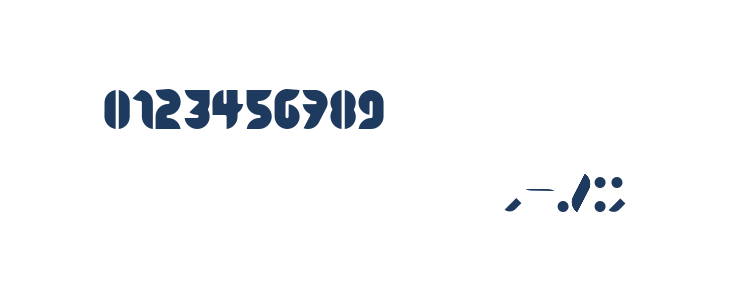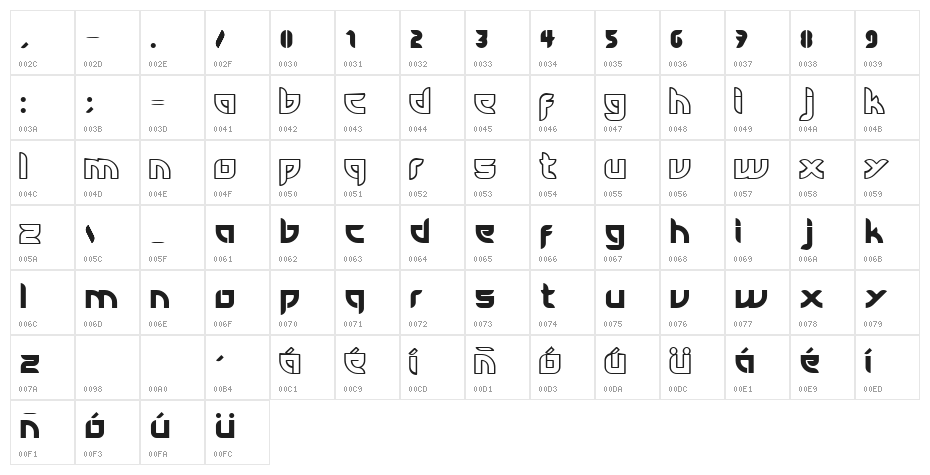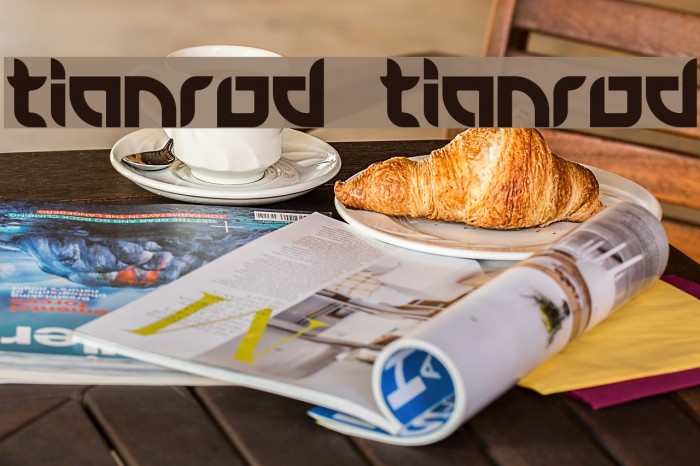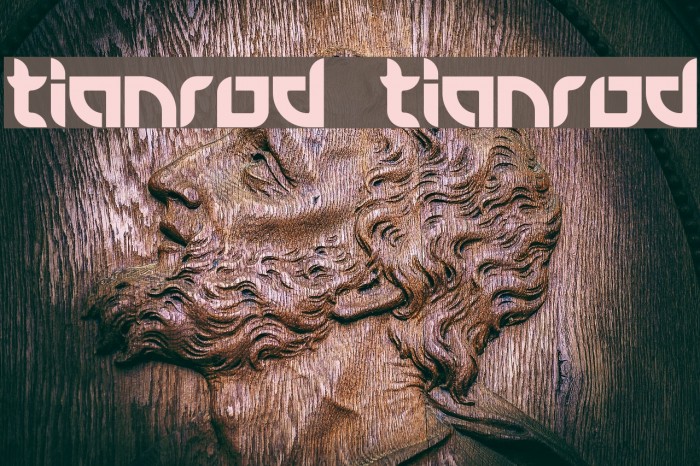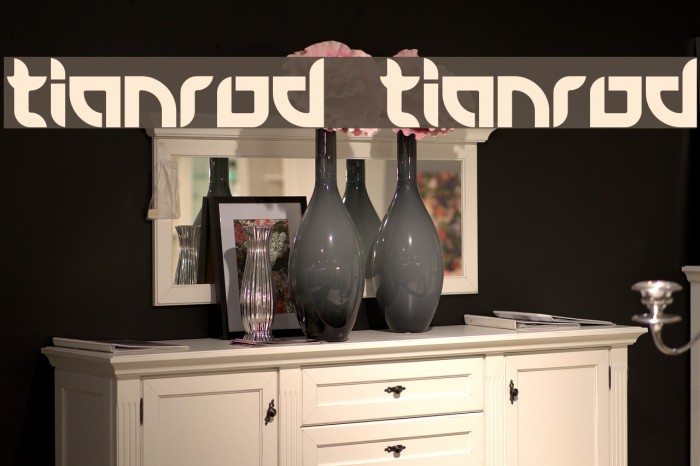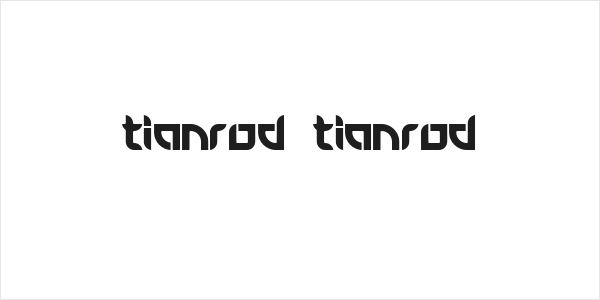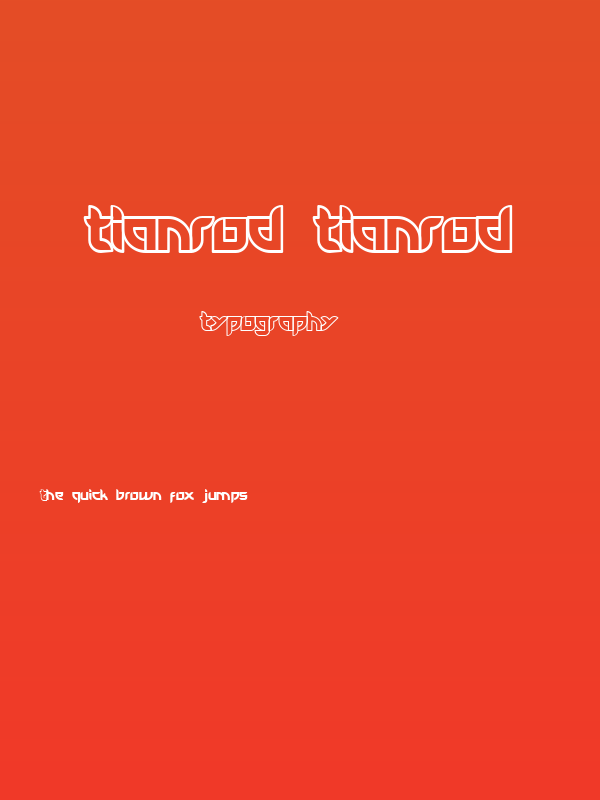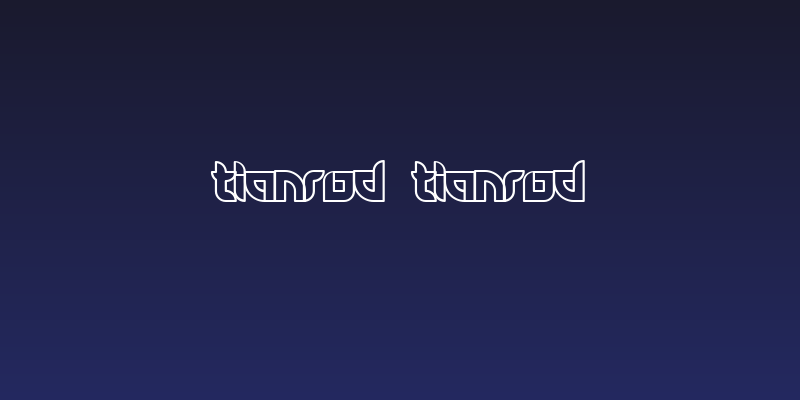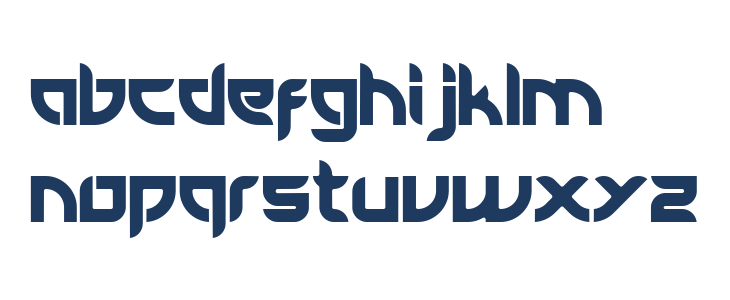
tianrod Font
tianrod Description
This font features a bold, futuristic design with a geometric structure. The characters are crafted with a unique blend of sharp angles and smooth curves, giving it a dynamic and modern appearance. The uppercase and lowercase letters maintain a consistent style, with the uppercase being slightly more pronounced. The numbers and special characters follow the same design principles, ensuring uniformity across all glyphs. The font's boldness makes it stand out, while its clean lines and balanced proportions provide readability. It's ideal for projects that require a contemporary and eye-catching typeface.
| Proposed Projects | Ideal for technology branding, sci-fi posters, video game titles, and modern advertising. |